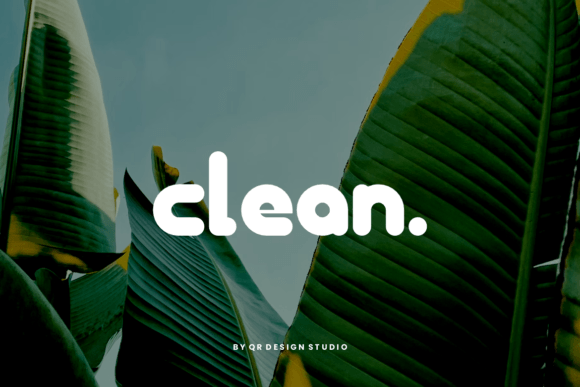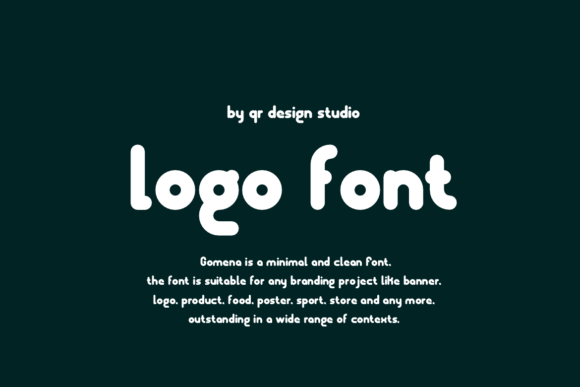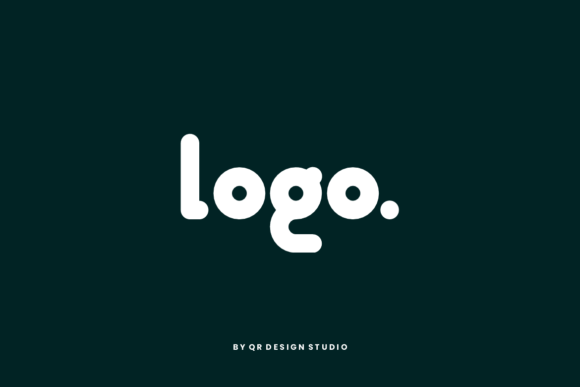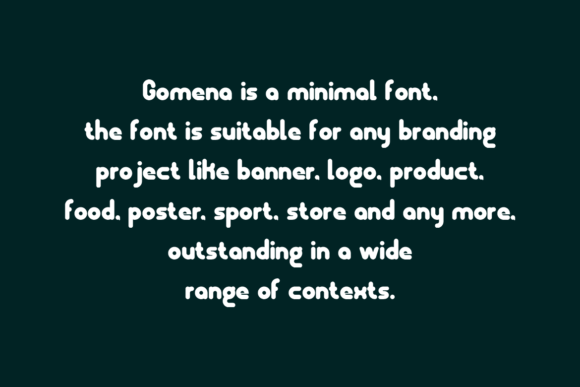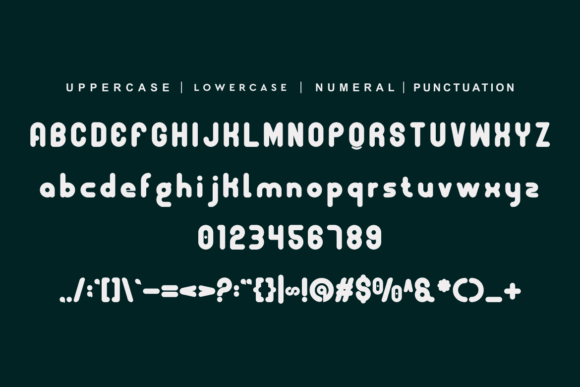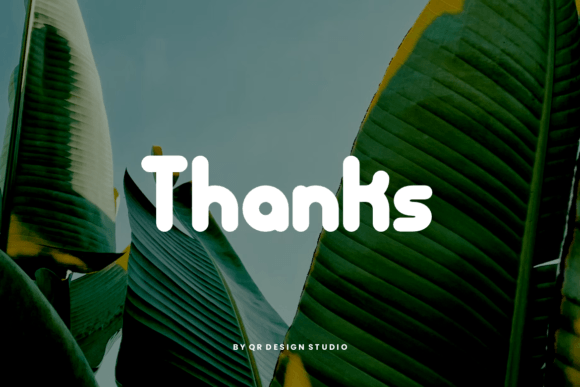
Introduction to Gomena Font
Gomena is a bold and assertive sans serif font.
Key Features of Gomena Font
Why Choose Gomena Font?
Gomena Font offers exceptional quality and versatility, making it a valuable addition to your design toolkit. Whether you’re creating for personal projects or commercial use, Gomena Font delivers professional results.